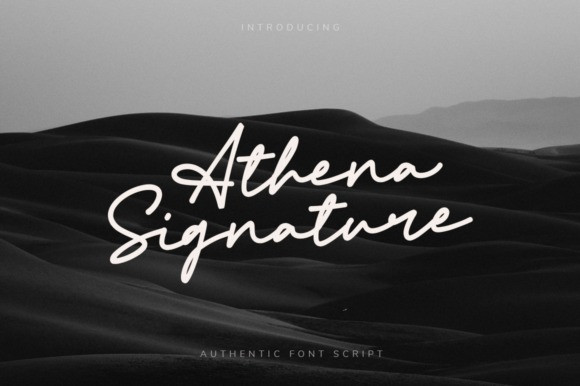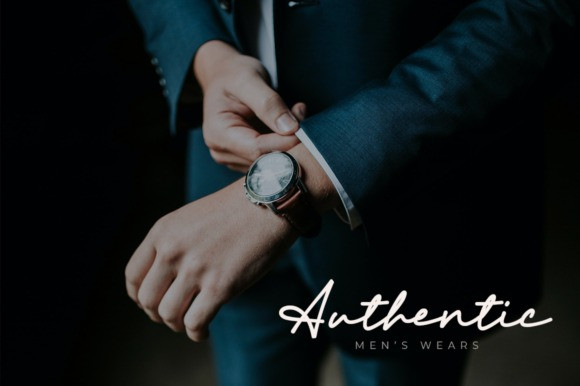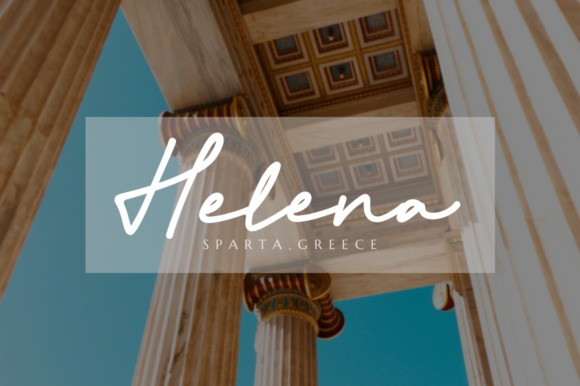
Athena Signature Font
Athena Signature is an authentic and stylish script font. Not too thin and not too thick, balanced and varied, this font was designed to enhance the beauty of your projects.